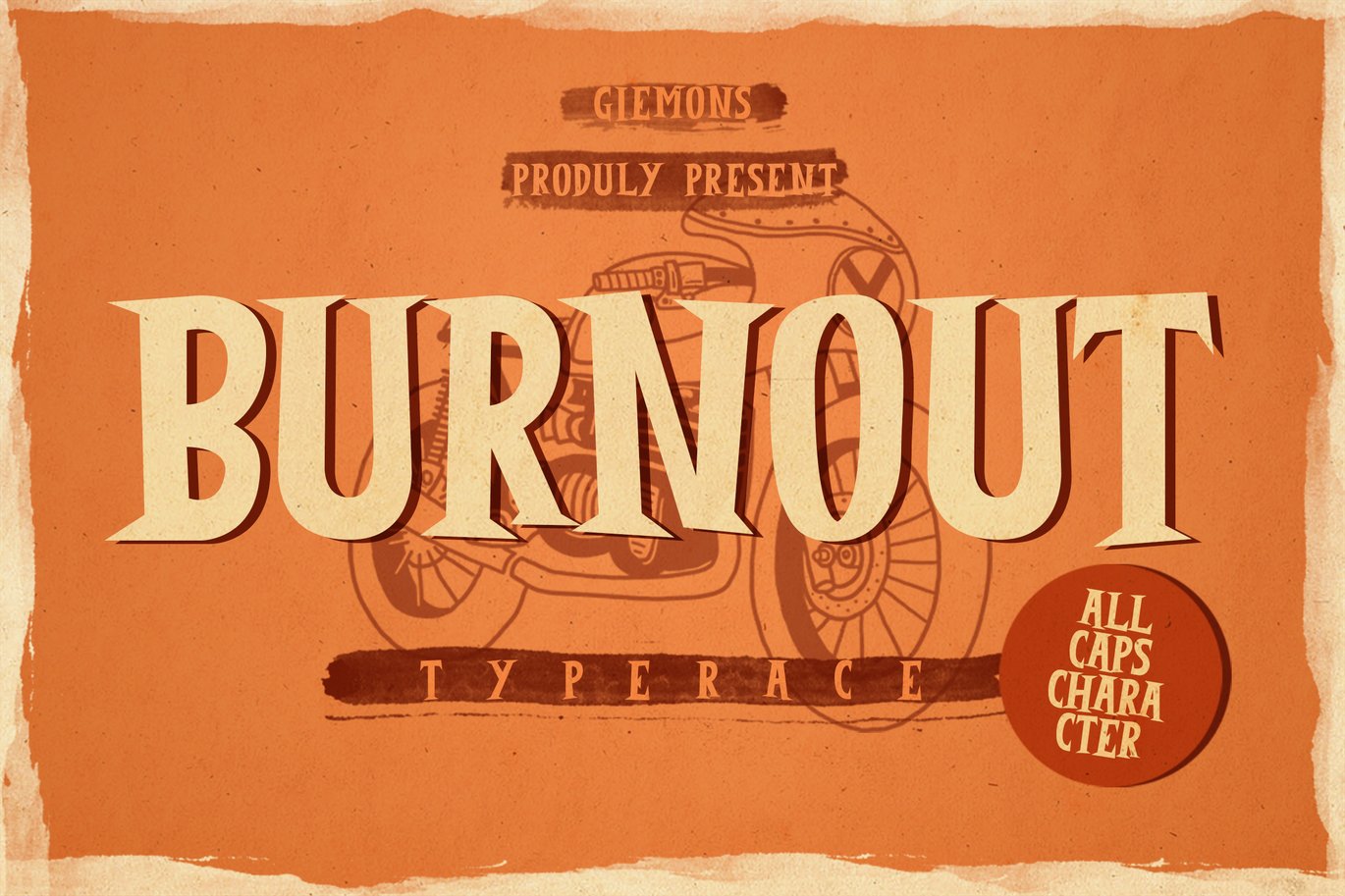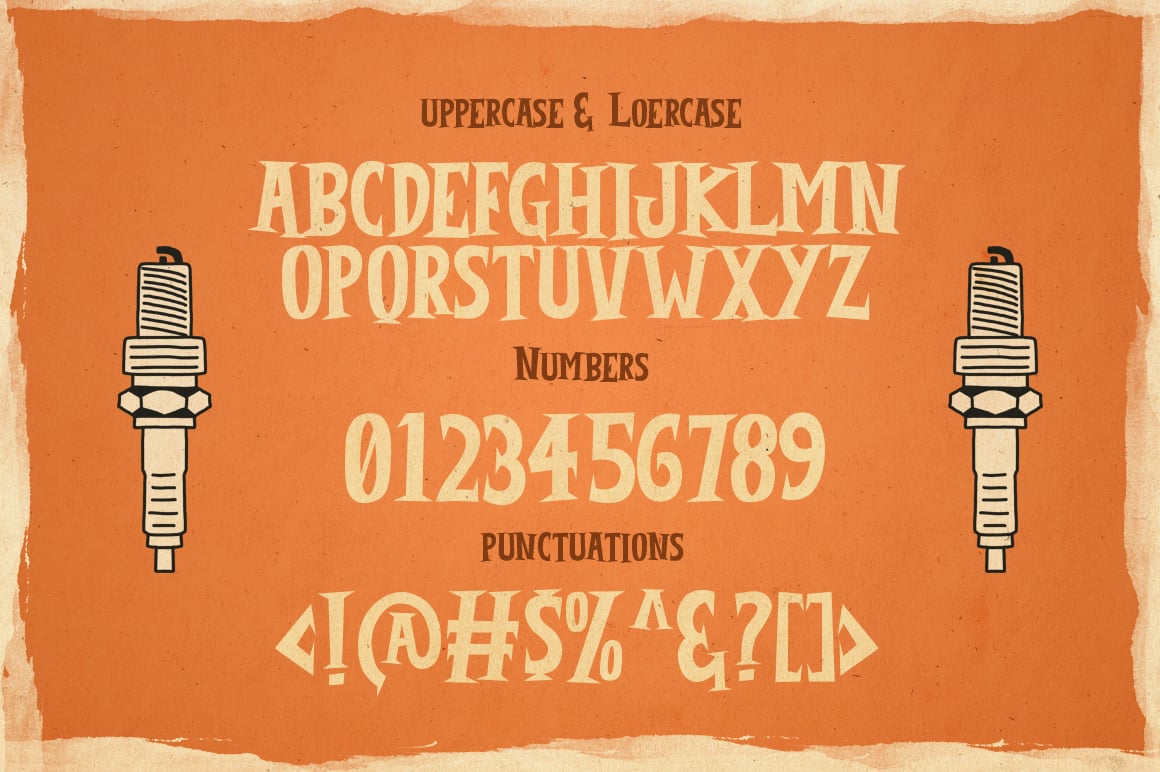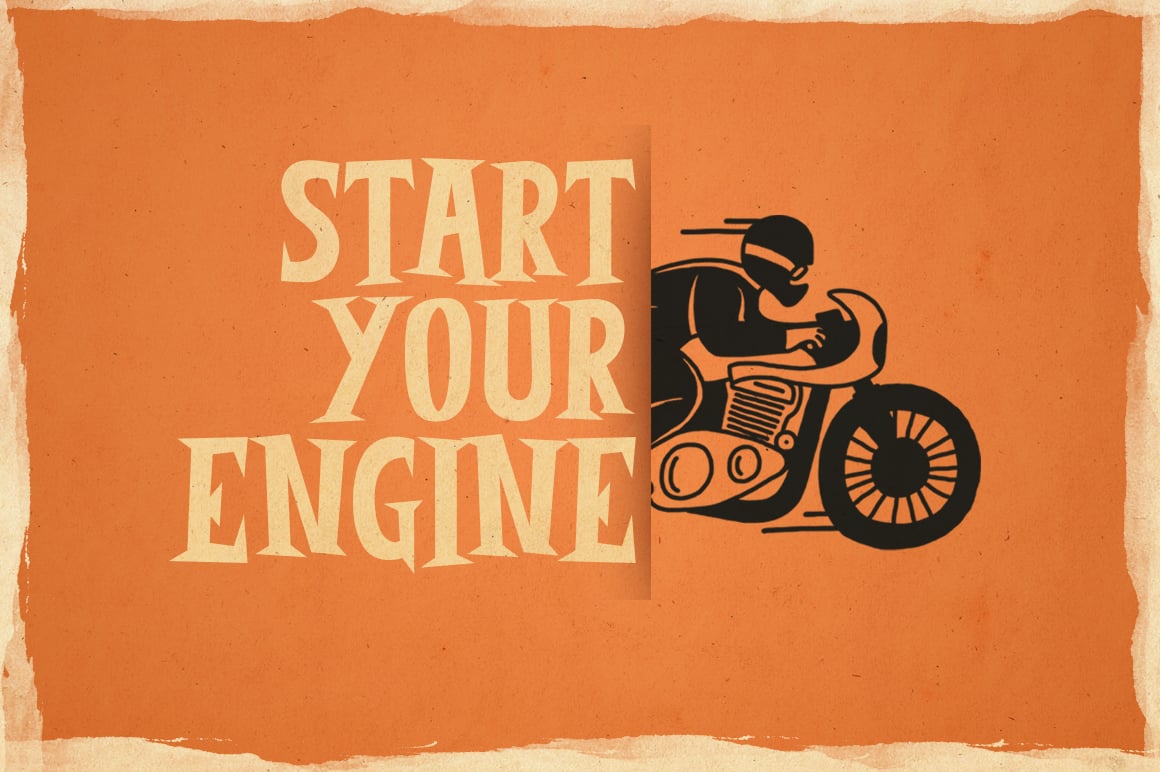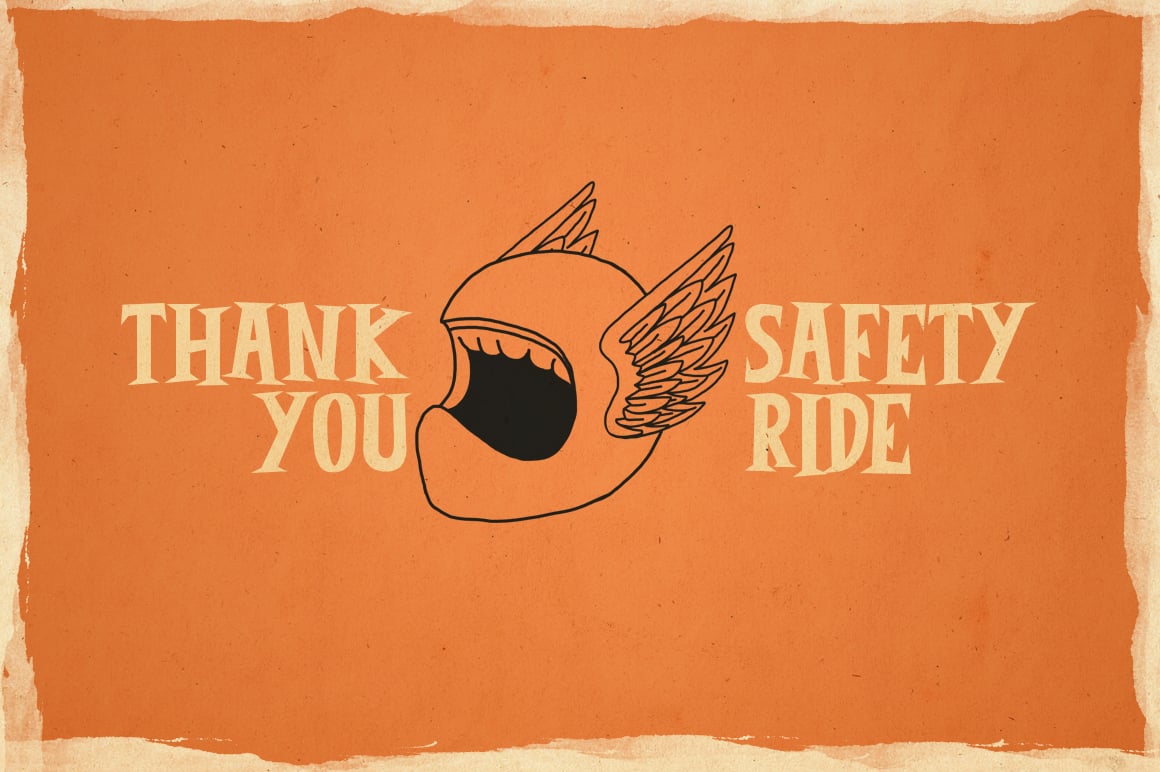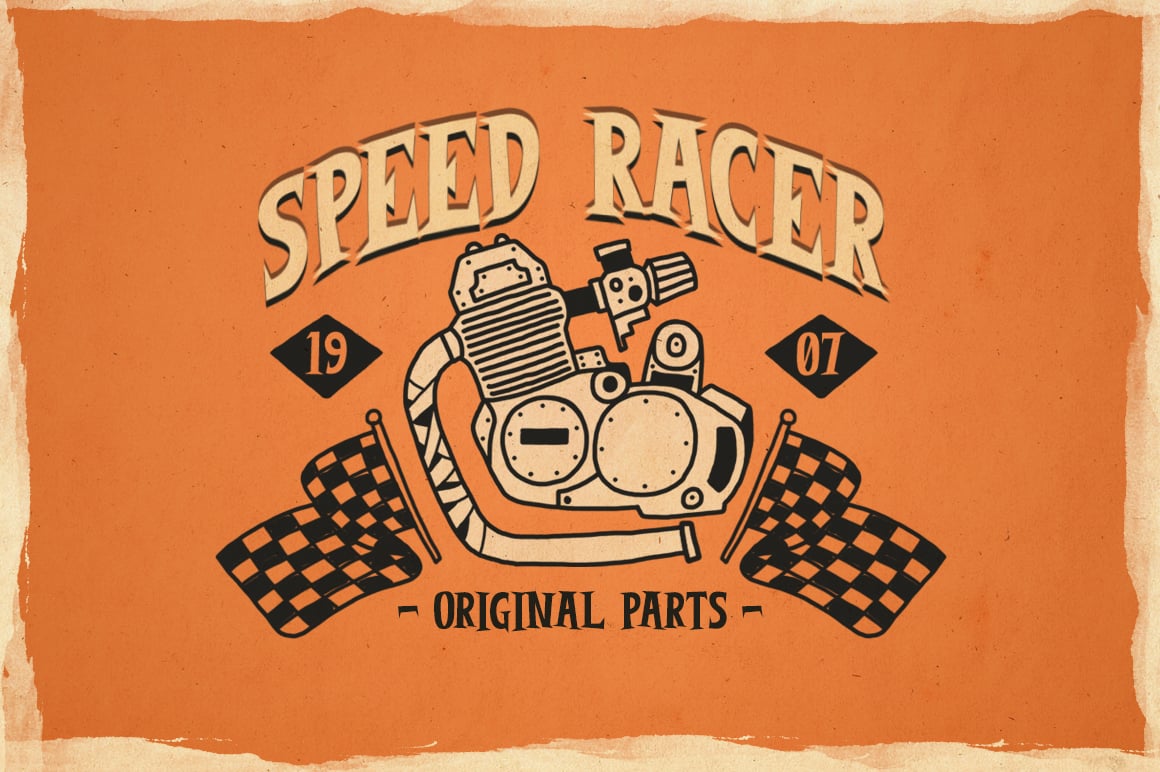
Burnout Font
a BURNOUT Typeface is unique font and also has vintage display font. Can make it easier to convey the message in your design. Use for awesome display, labeling, clothing, movie sceen, poster, movie title, gigs, album covers, logos, and much more.
Uppercases & Lowercases ( All Caps )
Numerals & Punctuations